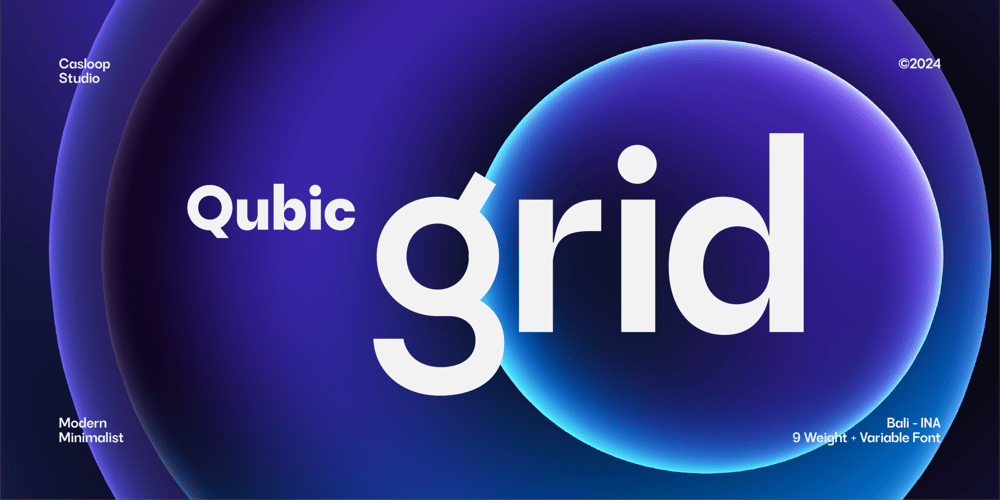
Qubic Grid Font Family was designed by Wantara Putra and published by Casloop Studio. Qubic Grid contains 9 styles and family package options. Introducing Qubic Grid – Where Modern Design Meets Timeless Versatility.Elevate your branding with Qubic Grid, the quintessential geometric sans-serif typeface designed for today’s digital and print needs. Qubic Grid blends modernity with professionalism, offering a clean, minimalist aesthetic that effortlessly complements UI/UX design, website interfaces, and dynamic digital media visuals.Qubic Grid stands out with its distinctive uppercase characters and Grotesque style, showcasing a sleek, contemporary design that is both impactful and legible. Quirky elements make it not only readable but also uniquely expressive. This typeface excels in conveying a sense of trustworthiness and sophistication, making it perfect for business and corporate branding.The Qubic Grid family includes a range of weights from Thin to Black, along with variable font options, ensuring you have the flexibility needed for various applications—from elegant logo designs and striking text animations to versatile packaging and motion graphics.Supported Languages: Bosnian, Catalan, Czech, Danish, German, English, Spanish, Estonian, Finnish, French, Proxima, Roboto, Bergen, Wild, Irish, Mango, BebasCroatian, Hungarian, Icelandic, Italian, Lithuanian, Tan, Latvian, Maltese, Dutch, Norwegian, Polish, Haas, Portuguese, Romanian, Slovak, Slovenian, Albanian, Swedish, Turkish.Its premium quality and geometric precision offer a blend of originality and modern charm that ensures your projects stand out with a timeless appeal.Discover the perfect balance of dynamic and professional with Qubic Grid – the typeface that brings a touch of modernity to your creative endeavors while maintaining an air of classic elegance.This Font seamlessly integrates with design applications like Adobe Illustrator, Adobe Photoshop, Corel Draw, Affinity Designer. However, it’s worth noting that its accessibility extends beyond traditional platforms; it can also be utilized on web-based applications such as Kittl, Canva, Artboard Studio, and more.Cheer from Casloop Bali! May this font bring vibrancy to your designs!